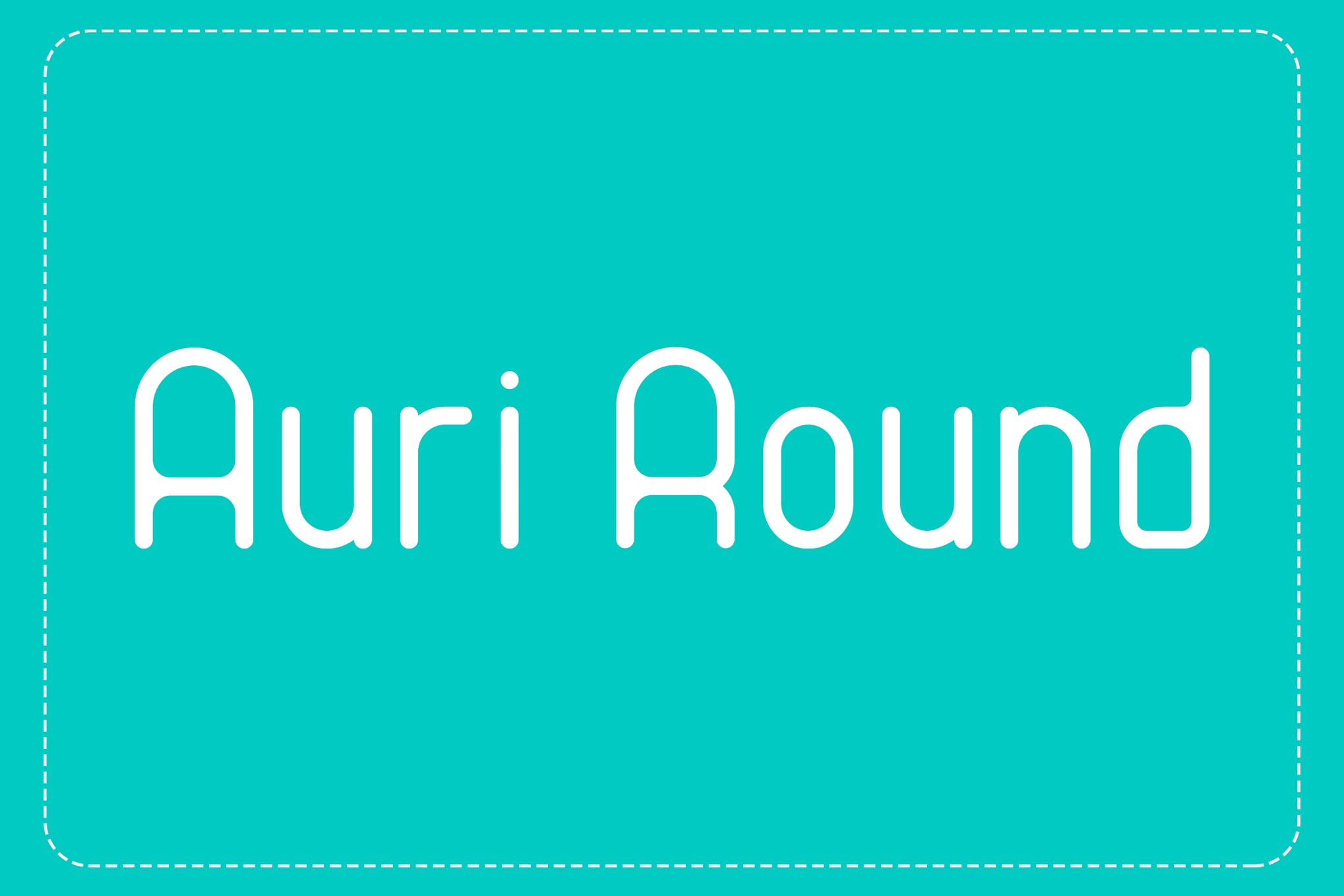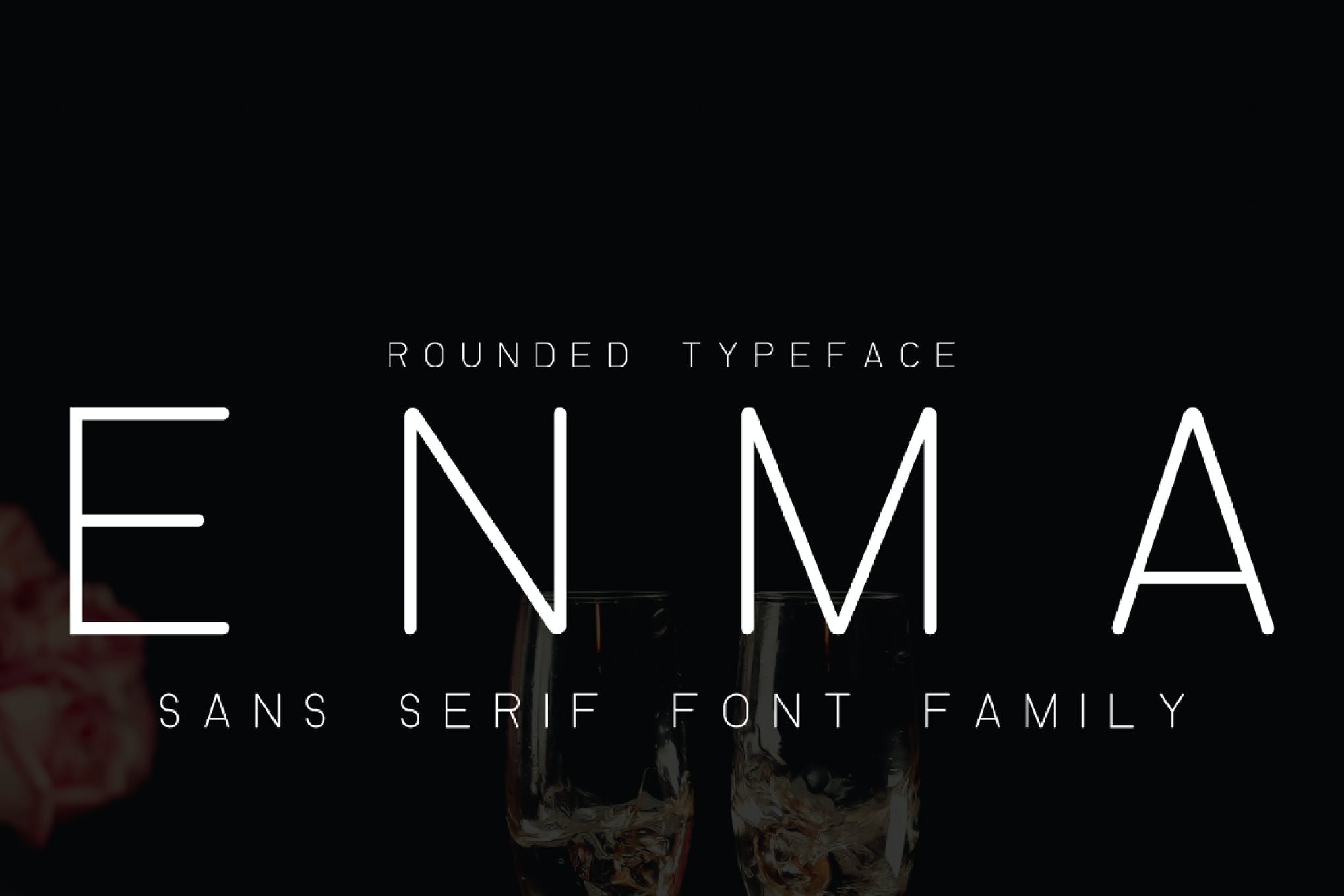
Rounded Fonts Meaning . These types of fonts are characterized by their solid and bold approach and are more at home with modern brands than classical ones. These fonts can be either rounded or angular,. Softness or comfort (jiang et al., 2016) Humans prefer round objects because sharp objects feel threatening:.sharp transitions in contour might convey a sense of threat, and therefore trigger a negative bias (bar & neta, 2006, p. 30 rounded fonts that add modern simplicity. Round fonts convey comfort and softness. Thanks to thousands of creative minds, you’re no longer stuck with the dreaded comic sans! Here are some great choices for smooth, rounded fonts that will not disappoint. In a nutshell, font psychology the study of how different fonts impact thoughts, feelings, and behaviors. 645) round fonts are particularly effective for: Script fonts are elegant, classic, stylish and formal. We’ve compiled four handy infographics that provide an introduction to font psychology and the emotions elicited by different types of typefaces. Choosing rounded fonts can give your projects a friendlier appeal. People have very different (and, oftentimes, very specific) thoughts, feelings,.
645) round fonts are particularly effective for: Humans prefer round objects because sharp objects feel threatening:.sharp transitions in contour might convey a sense of threat, and therefore trigger a negative bias (bar & neta, 2006, p. Here are some great choices for smooth, rounded fonts that will not disappoint. Thanks to thousands of creative minds, you’re no longer stuck with the dreaded comic sans! These fonts can be either rounded or angular,. People have very different (and, oftentimes, very specific) thoughts, feelings,. These types of fonts are characterized by their solid and bold approach and are more at home with modern brands than classical ones. Softness or comfort (jiang et al., 2016) In a nutshell, font psychology the study of how different fonts impact thoughts, feelings, and behaviors. Round fonts convey comfort and softness.
Rounded Fonts Meaning These types of fonts are characterized by their solid and bold approach and are more at home with modern brands than classical ones. People have very different (and, oftentimes, very specific) thoughts, feelings,. These fonts can be either rounded or angular,. Thanks to thousands of creative minds, you’re no longer stuck with the dreaded comic sans! Humans prefer round objects because sharp objects feel threatening:.sharp transitions in contour might convey a sense of threat, and therefore trigger a negative bias (bar & neta, 2006, p. We’ve compiled four handy infographics that provide an introduction to font psychology and the emotions elicited by different types of typefaces. Script fonts are elegant, classic, stylish and formal. In a nutshell, font psychology the study of how different fonts impact thoughts, feelings, and behaviors. These types of fonts are characterized by their solid and bold approach and are more at home with modern brands than classical ones. 30 rounded fonts that add modern simplicity. 645) round fonts are particularly effective for: Choosing rounded fonts can give your projects a friendlier appeal. Round fonts convey comfort and softness. Softness or comfort (jiang et al., 2016) Here are some great choices for smooth, rounded fonts that will not disappoint.
10 Best Free Bold Sans Serif Rounded Fonts Family for Designers Rounded Fonts Meaning Humans prefer round objects because sharp objects feel threatening:.sharp transitions in contour might convey a sense of threat, and therefore trigger a negative bias (bar & neta, 2006, p. These types of fonts are characterized by their solid and bold approach and are more at home with modern brands than classical ones. People have very different (and, oftentimes, very specific). Rounded Fonts Meaning.
(Back To Top) Rounded Fonts Meaning In a nutshell, font psychology the study of how different fonts impact thoughts, feelings, and behaviors. Script fonts are elegant, classic, stylish and formal. Choosing rounded fonts can give your projects a friendlier appeal. We’ve compiled four handy infographics that provide an introduction to font psychology and the emotions elicited by different types of typefaces. These types of fonts are. Rounded Fonts Meaning.
40 Best Rounded Fonts (Free & Pro) Shack Design Rounded Fonts Meaning People have very different (and, oftentimes, very specific) thoughts, feelings,. Script fonts are elegant, classic, stylish and formal. Humans prefer round objects because sharp objects feel threatening:.sharp transitions in contour might convey a sense of threat, and therefore trigger a negative bias (bar & neta, 2006, p. 645) round fonts are particularly effective for: Choosing rounded fonts can give your. Rounded Fonts Meaning.
20+ Best Rounded Fonts for Graphic Design, Branding & Logos Rounded Fonts Meaning In a nutshell, font psychology the study of how different fonts impact thoughts, feelings, and behaviors. These types of fonts are characterized by their solid and bold approach and are more at home with modern brands than classical ones. We’ve compiled four handy infographics that provide an introduction to font psychology and the emotions elicited by different types of typefaces.. Rounded Fonts Meaning.
30+ of the Best Rounded Fonts Bittbox Rounded Fonts Meaning 30 rounded fonts that add modern simplicity. Choosing rounded fonts can give your projects a friendlier appeal. People have very different (and, oftentimes, very specific) thoughts, feelings,. Softness or comfort (jiang et al., 2016) These fonts can be either rounded or angular,. In a nutshell, font psychology the study of how different fonts impact thoughts, feelings, and behaviors. Humans prefer. Rounded Fonts Meaning.
29 Smooth Rounded Fonts for Beautifully Functional Designs HipFonts Rounded Fonts Meaning Here are some great choices for smooth, rounded fonts that will not disappoint. Choosing rounded fonts can give your projects a friendlier appeal. 645) round fonts are particularly effective for: These types of fonts are characterized by their solid and bold approach and are more at home with modern brands than classical ones. We’ve compiled four handy infographics that provide. Rounded Fonts Meaning.
20+ Best Rounded Fonts (Modern Sans & Serif Rounded Fonts) 2021 Theme Rounded Fonts Meaning These fonts can be either rounded or angular,. We’ve compiled four handy infographics that provide an introduction to font psychology and the emotions elicited by different types of typefaces. 645) round fonts are particularly effective for: In a nutshell, font psychology the study of how different fonts impact thoughts, feelings, and behaviors. Thanks to thousands of creative minds, you’re no. Rounded Fonts Meaning.
Featured image Rounded Fonts Meaning Humans prefer round objects because sharp objects feel threatening:.sharp transitions in contour might convey a sense of threat, and therefore trigger a negative bias (bar & neta, 2006, p. Softness or comfort (jiang et al., 2016) Choosing rounded fonts can give your projects a friendlier appeal. Here are some great choices for smooth, rounded fonts that will not disappoint. People. Rounded Fonts Meaning.